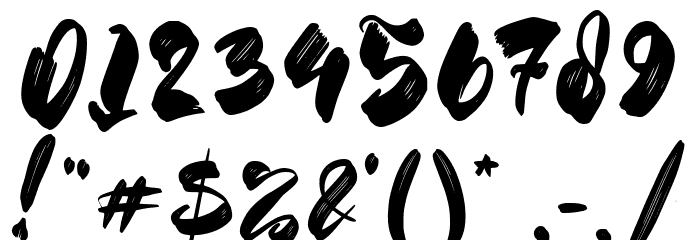
Valentine Brilliant Font
This font exudes a bold and expressive style, characterized by its fluid, brush-like strokes that convey a sense of movement and energy. The uppercase and lowercase letters are crafted with sweeping curves and dramatic flourishes, giving it a dynamic and artistic appearance. The numbers and special characters maintain this expressive style, ensuring consistency across all elements. The font's design is reminiscent of hand-painted calligraphy, making it ideal for projects that require a personal and artistic touch. Its boldness and high contrast in stroke thickness make it stand out, while the slightly irregular character spacing adds to its handcrafted feel.
A bold, expressive brush-style font with dynamic, sweeping curves.
- Proposed Projects: Ideal for wedding invitations, greeting cards, branding projects, and artistic posters.
- Character Spacing: Slightly irregular
- Use Case: Logos, Headlines, Artistic projects